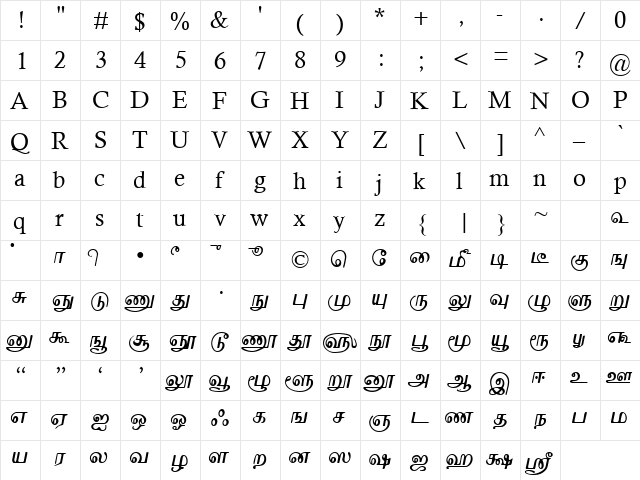
TABMaduram Normal
Design Context for TABMaduram Typeface
TABMaduram takes a measured approach to typography — its balanced proportions and neutral character make it a reliable workhorse for both digital and print work.